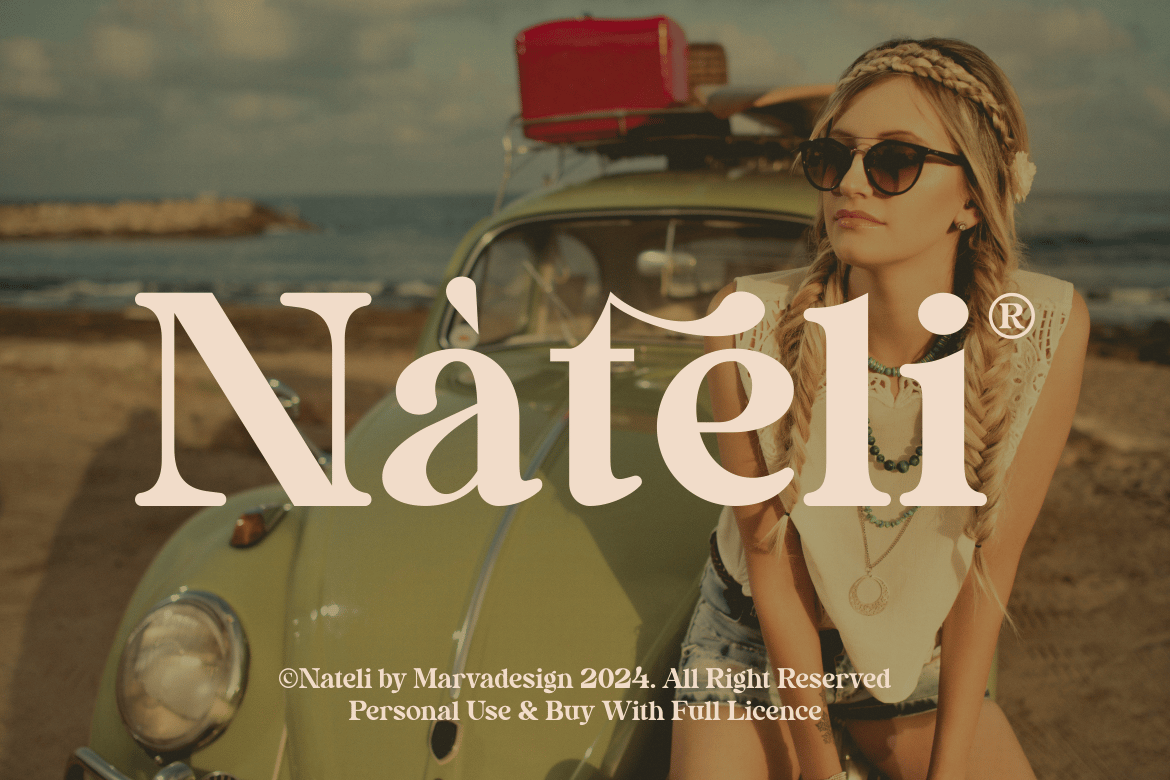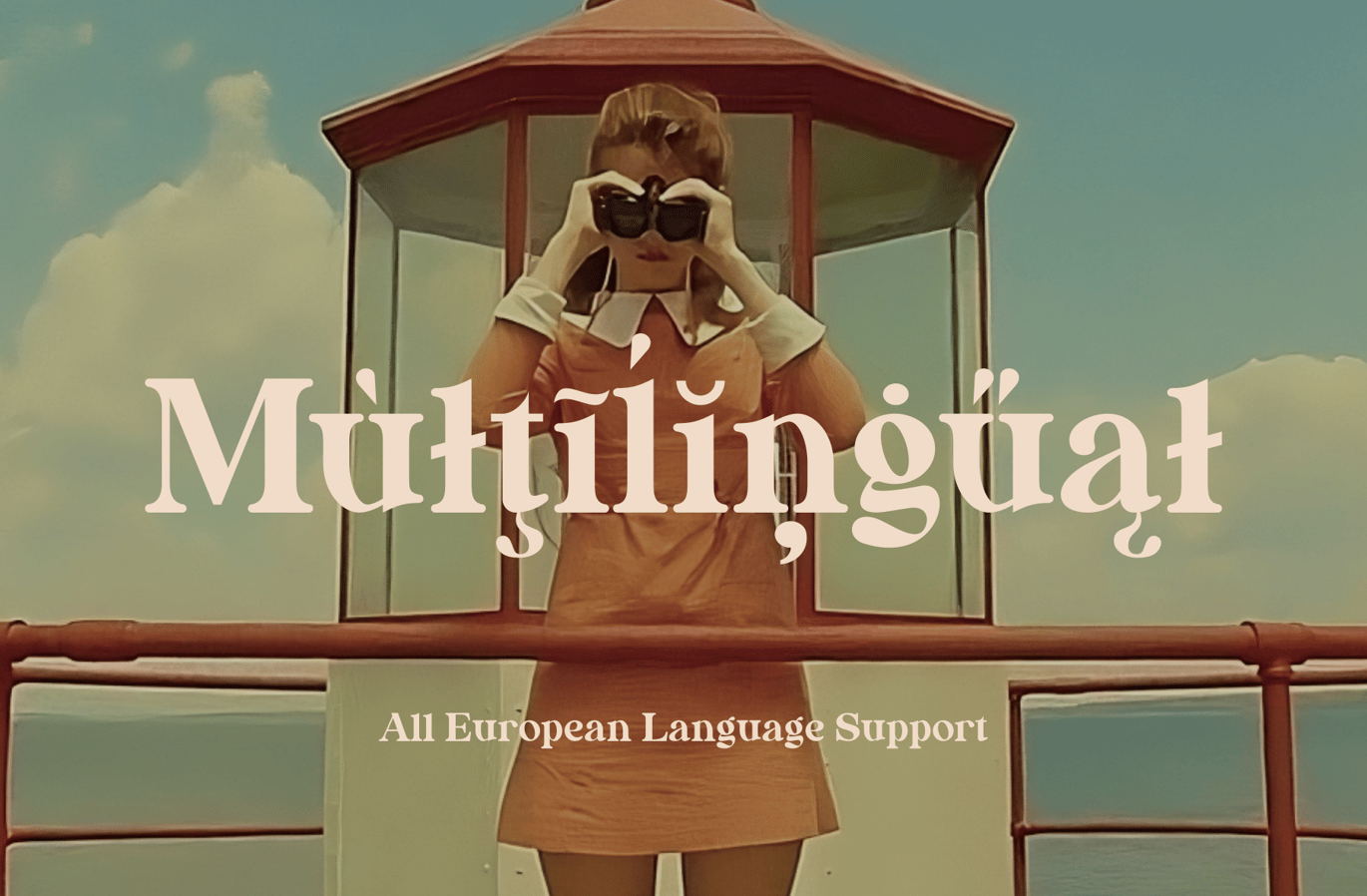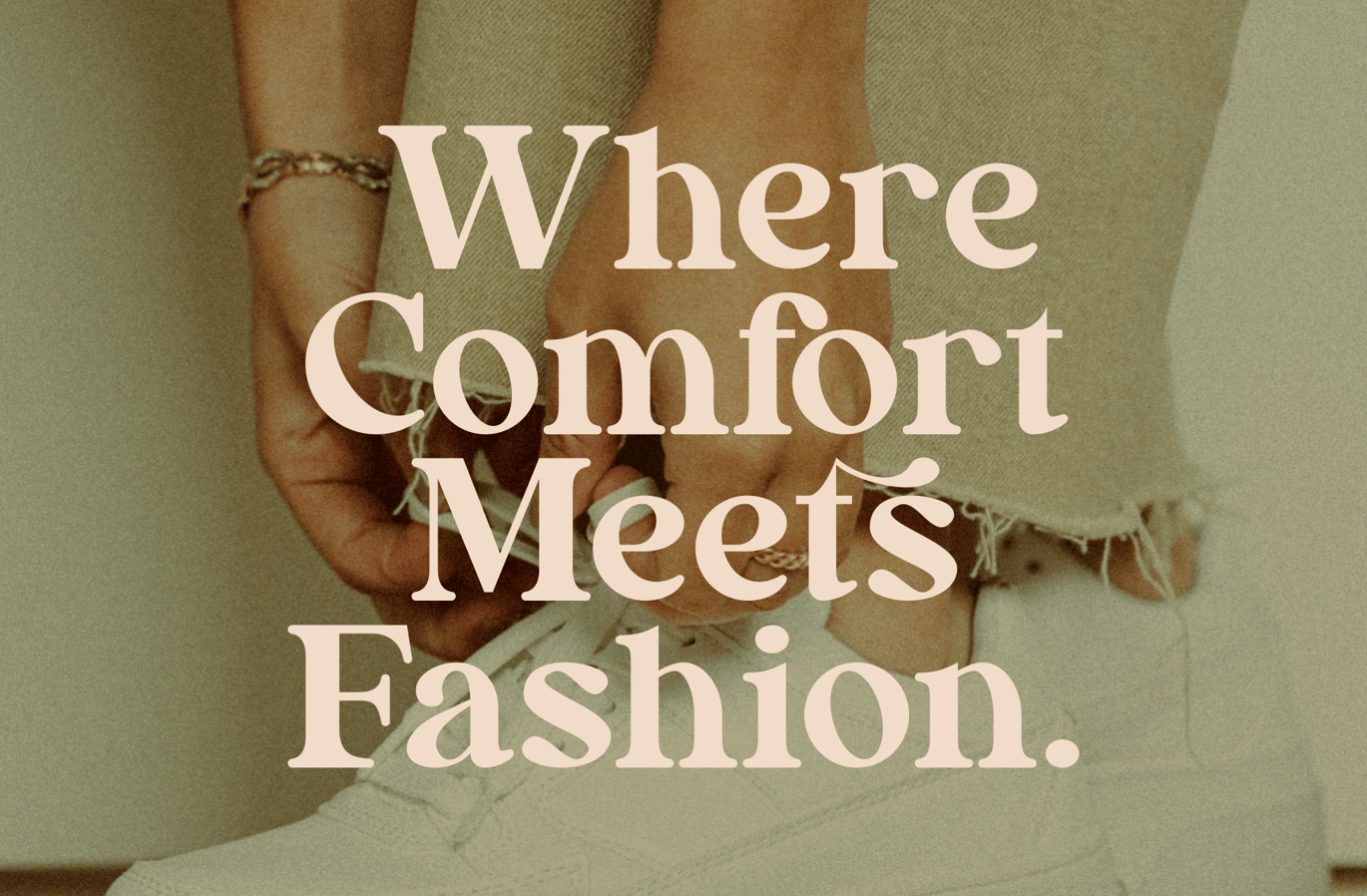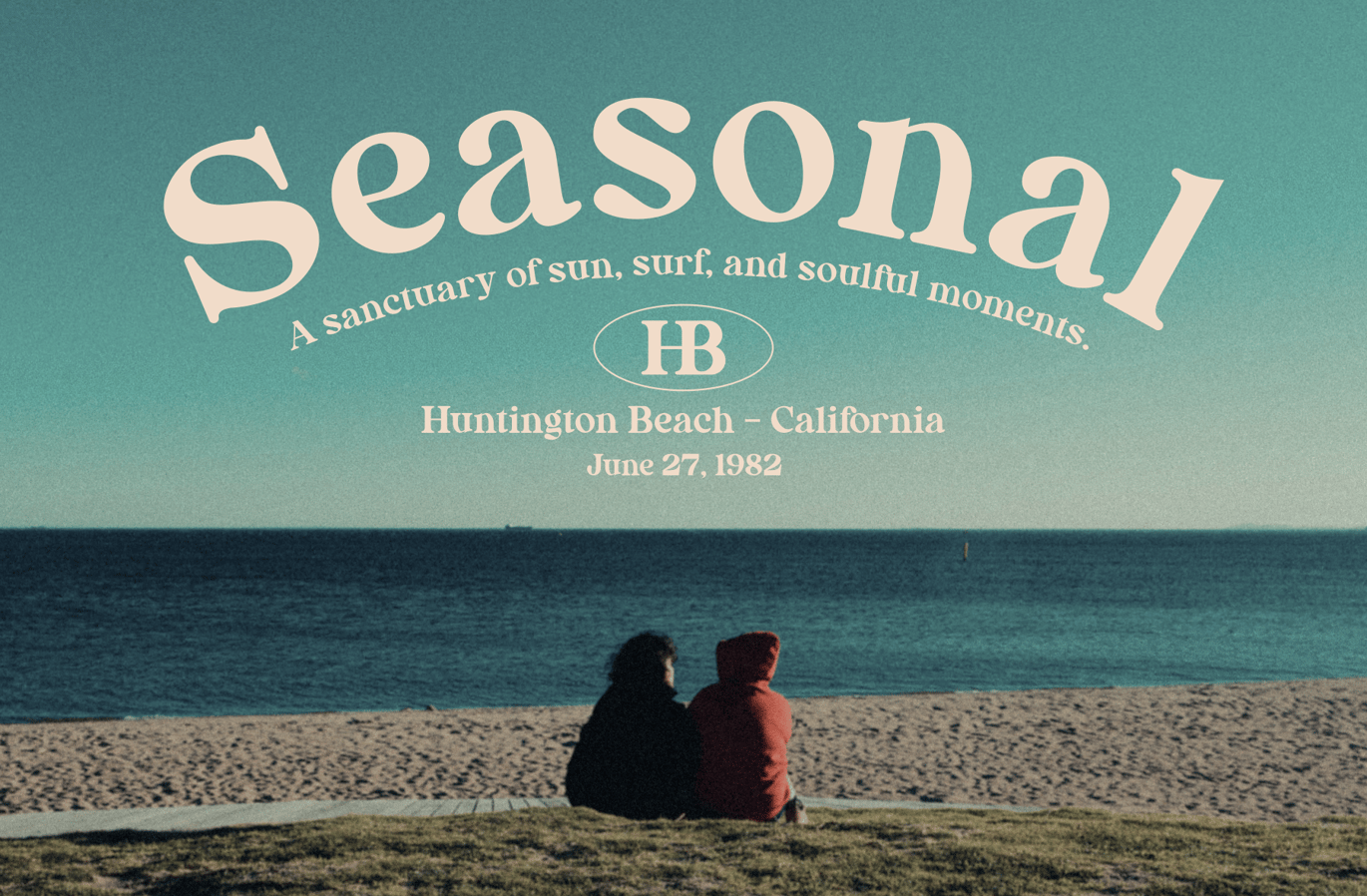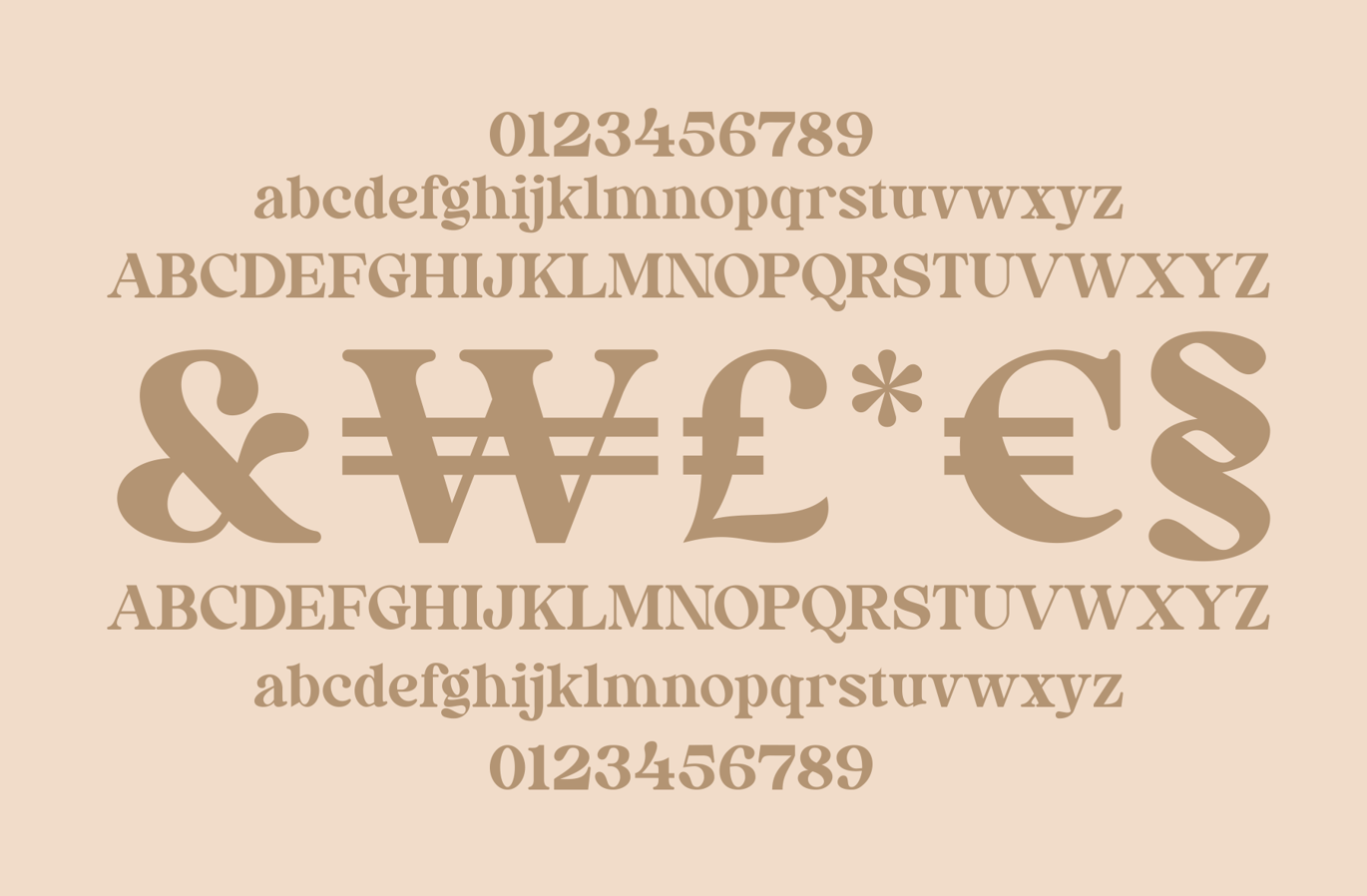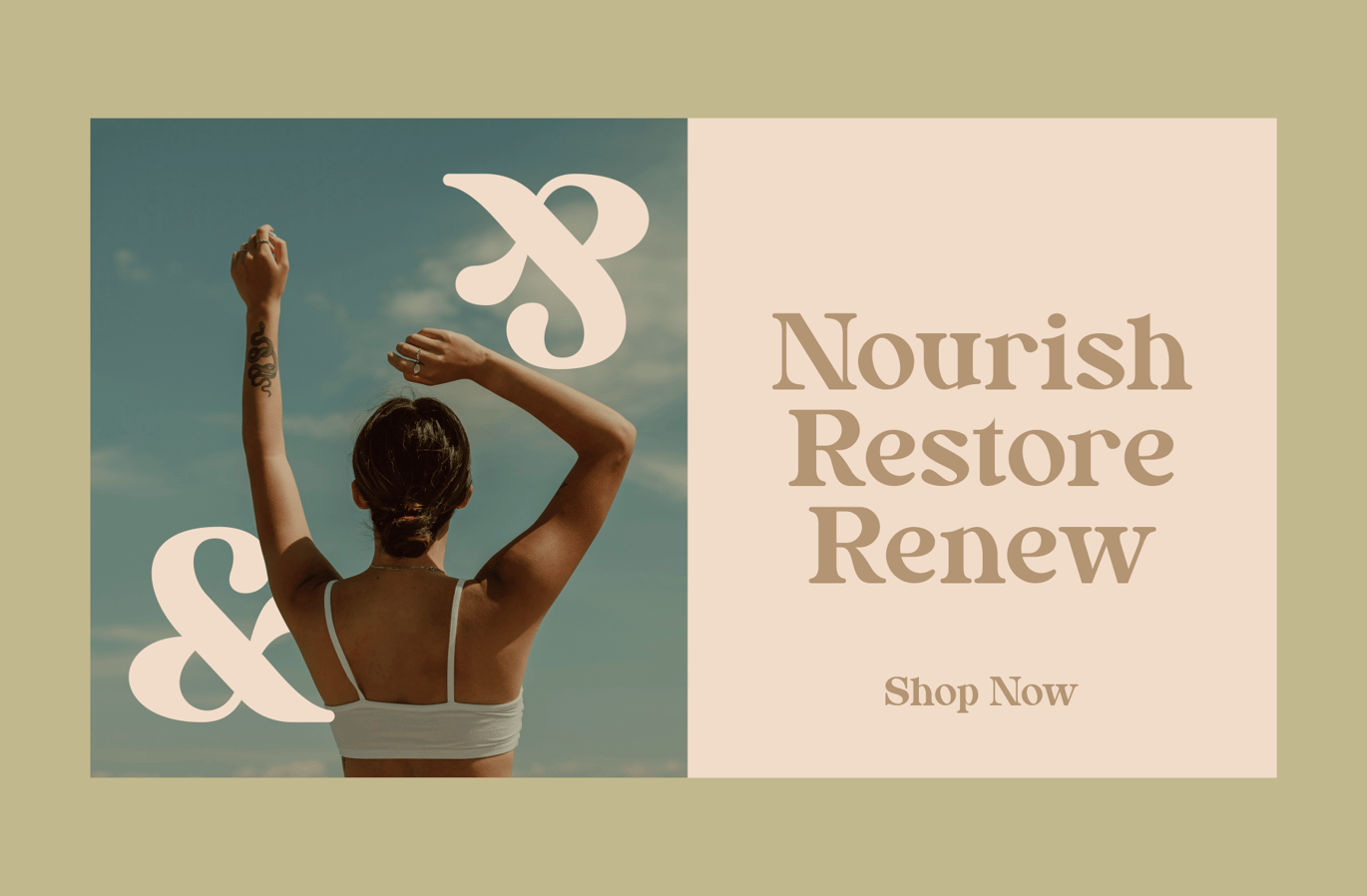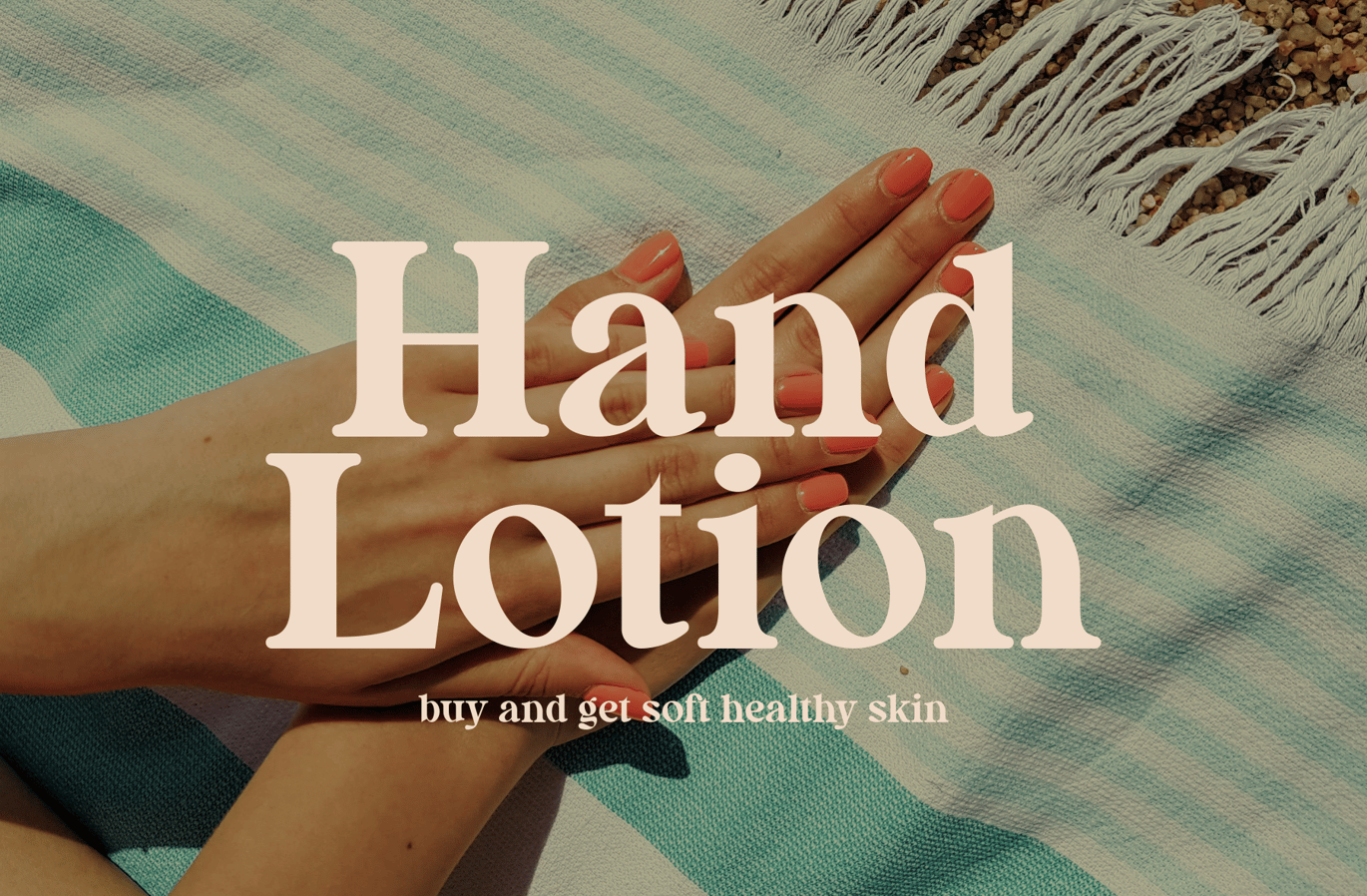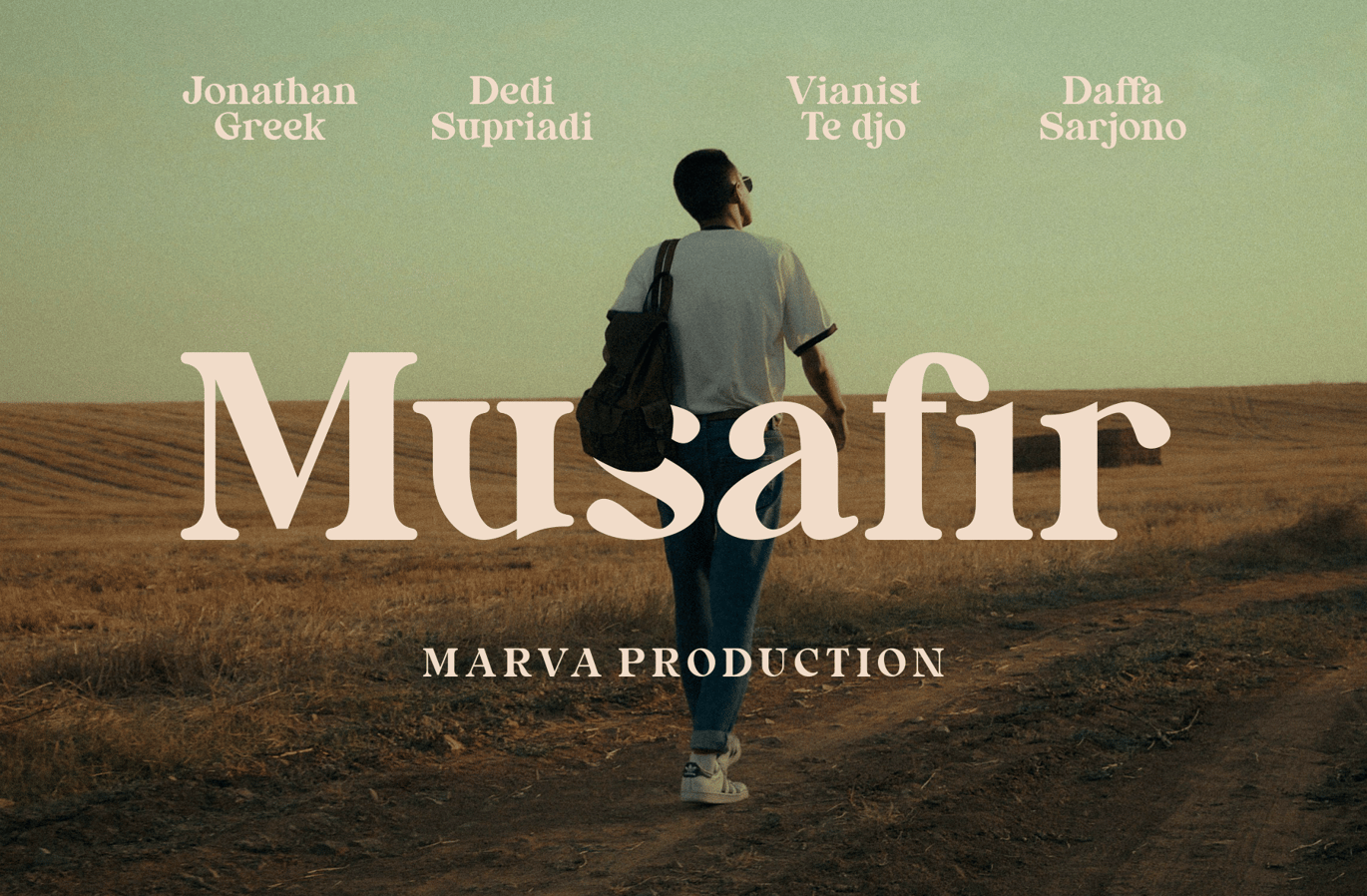
Nateli – A Serif Display Font
Introducing Nateli is a display serif font exuding elegance in every character. With its bold design, each letter presents a strong and prominent appearance, making it perfect for titles seeking attention. Every character in this font possesses its own uniqueness, showcasing beautiful and proportional details. The elegant serif lines add a classical touch to each letter, making it an ideal choice for imparting a luxurious and classy impression to title designs.